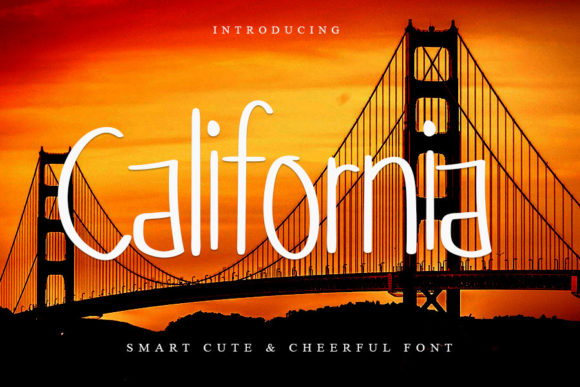
About California Font
California is a simple, clear, and well-spaced handwritten font. With its incredibly neat style, this font is the perfect choice for magazine titles, name tags, labels, and anything else that needs to be easily readable!